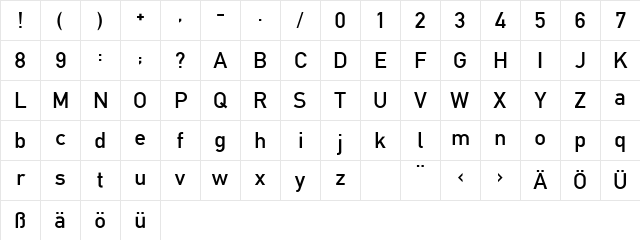
DIN1451EF Regular
DIN1451EF Family
Design Context for DIN1451EF
DIN1451EF is a composed and adaptable typeface that performs quietly and consistently across a wide range of design contexts.